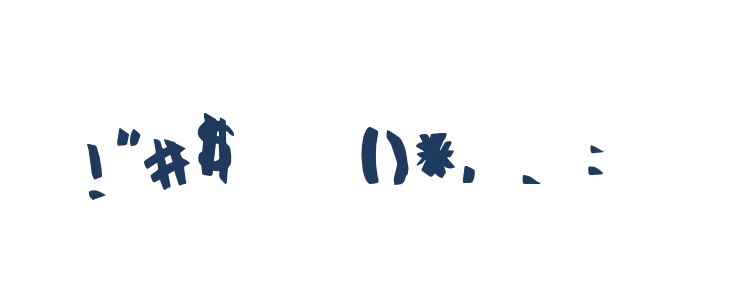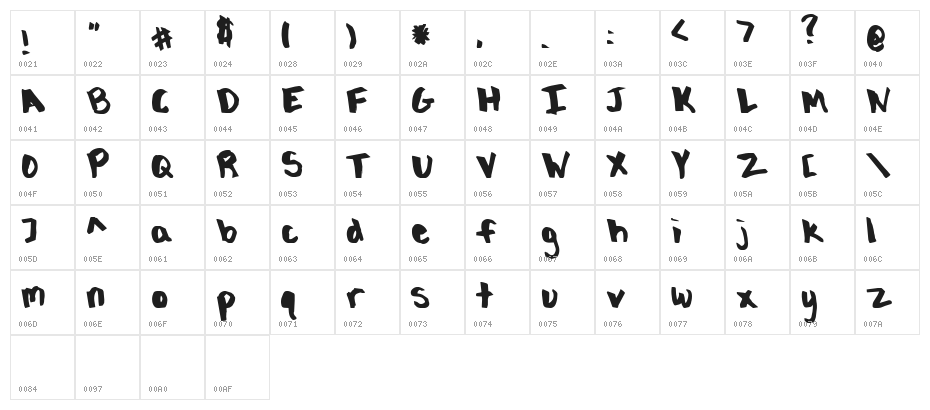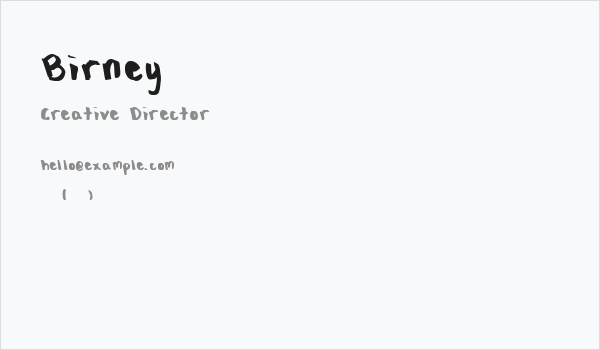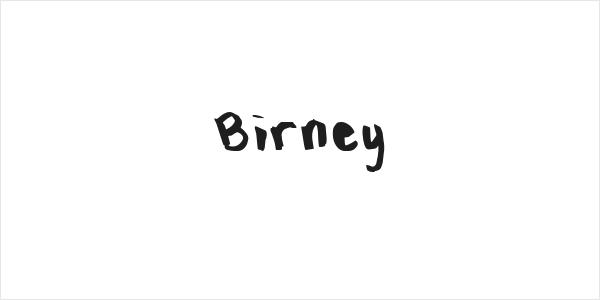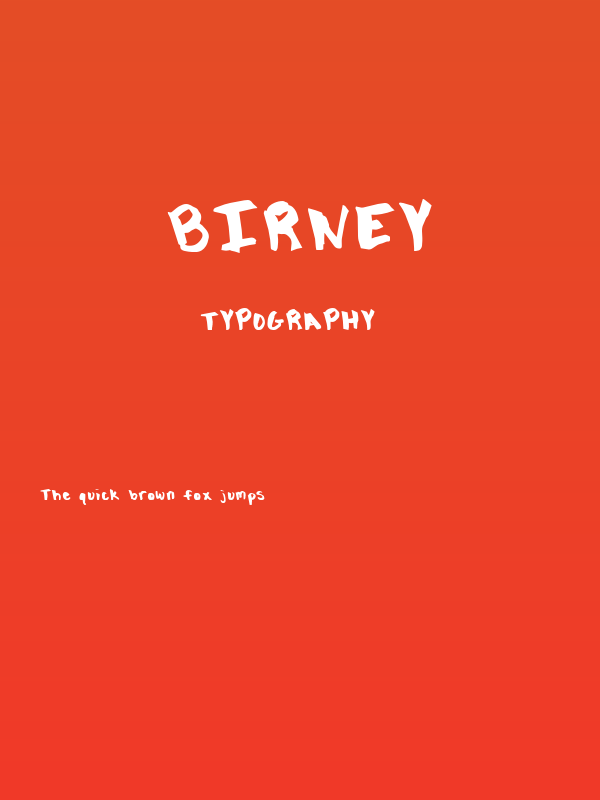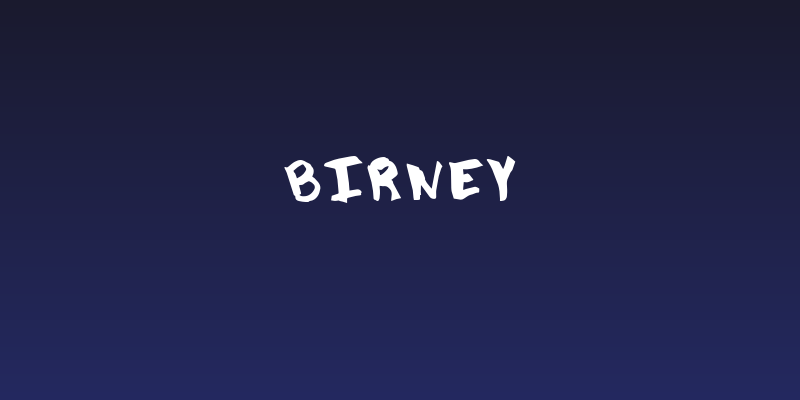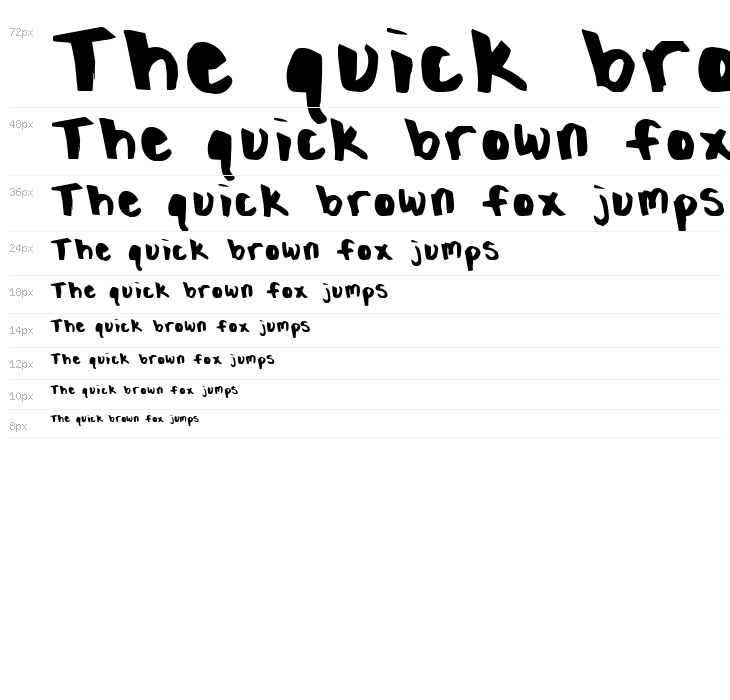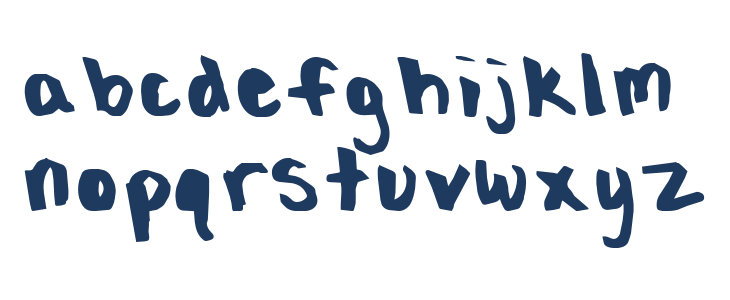
Birney Font
Birney Description
This font features a bold, handwritten style with a playful and informal appearance. The letters are slightly irregular, giving it a dynamic and energetic feel. The uppercase and lowercase characters maintain a consistent weight, adding to the cohesive look of the font. The strokes are thick and have a brush-like texture, which enhances its casual and artistic vibe. The special characters are designed to match the overall style, ensuring a harmonious look across all text. This font is perfect for projects that require a personal touch or a creative flair.
| Proposed Projects | Ideal for greeting cards, posters, social media graphics, and creative branding projects. |